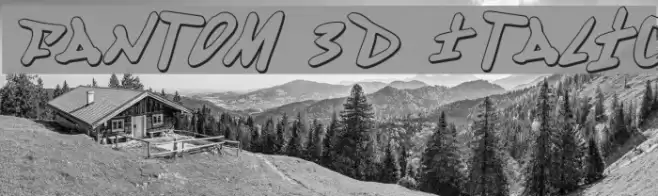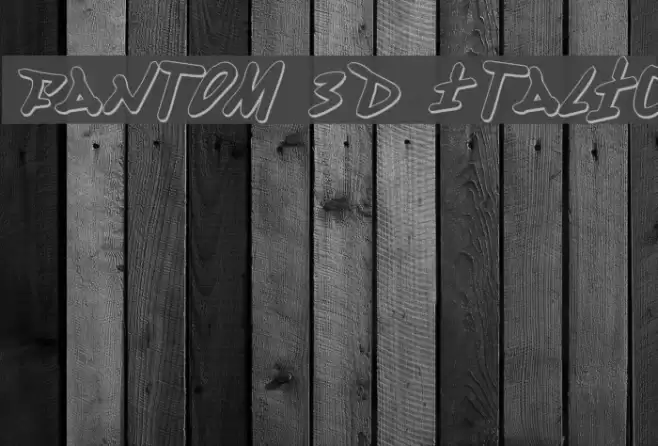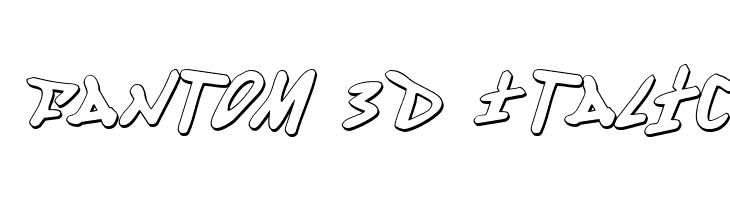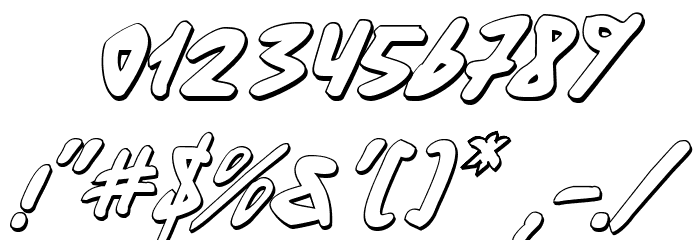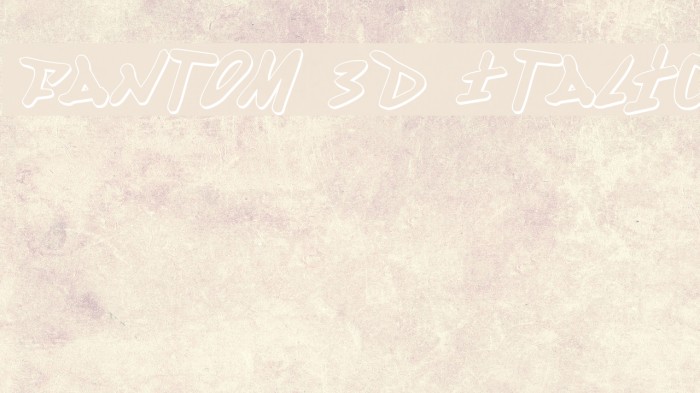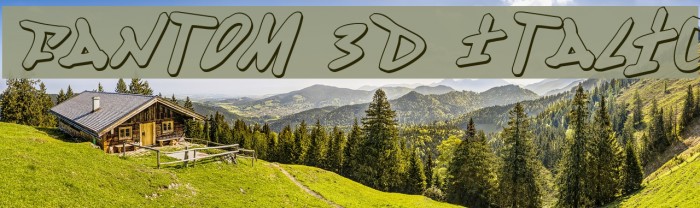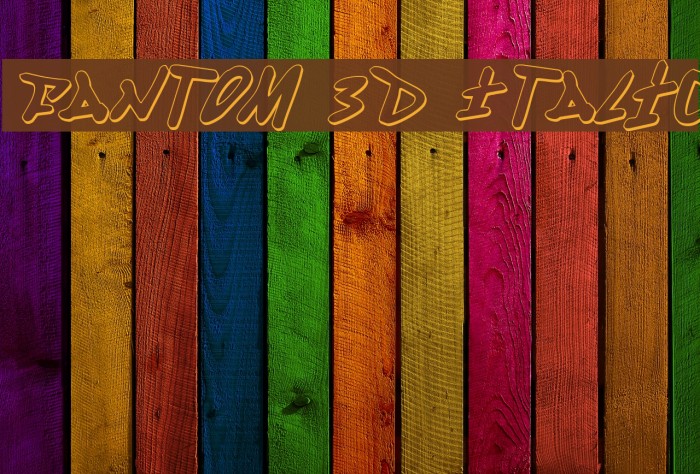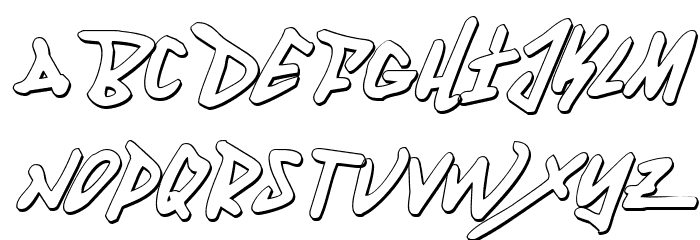
Fantom 3D Italic Font
Fantom 3D Italic Description
This font features a bold, three-dimensional appearance with a distinct italic slant, giving it a dynamic and energetic feel. The characters are outlined, creating a shadow effect that enhances the 3D illusion. The strokes are thick and consistent, providing a strong visual impact. The font maintains a playful and modern style, making it suitable for creative and eye-catching designs. The uppercase and lowercase letters are well-proportioned, and the numbers and special characters are designed to match the overall aesthetic. The font's unique style is ideal for projects that require a bold statement.
A bold, 3D italic font with a playful and modern style from Handwritten fonts.